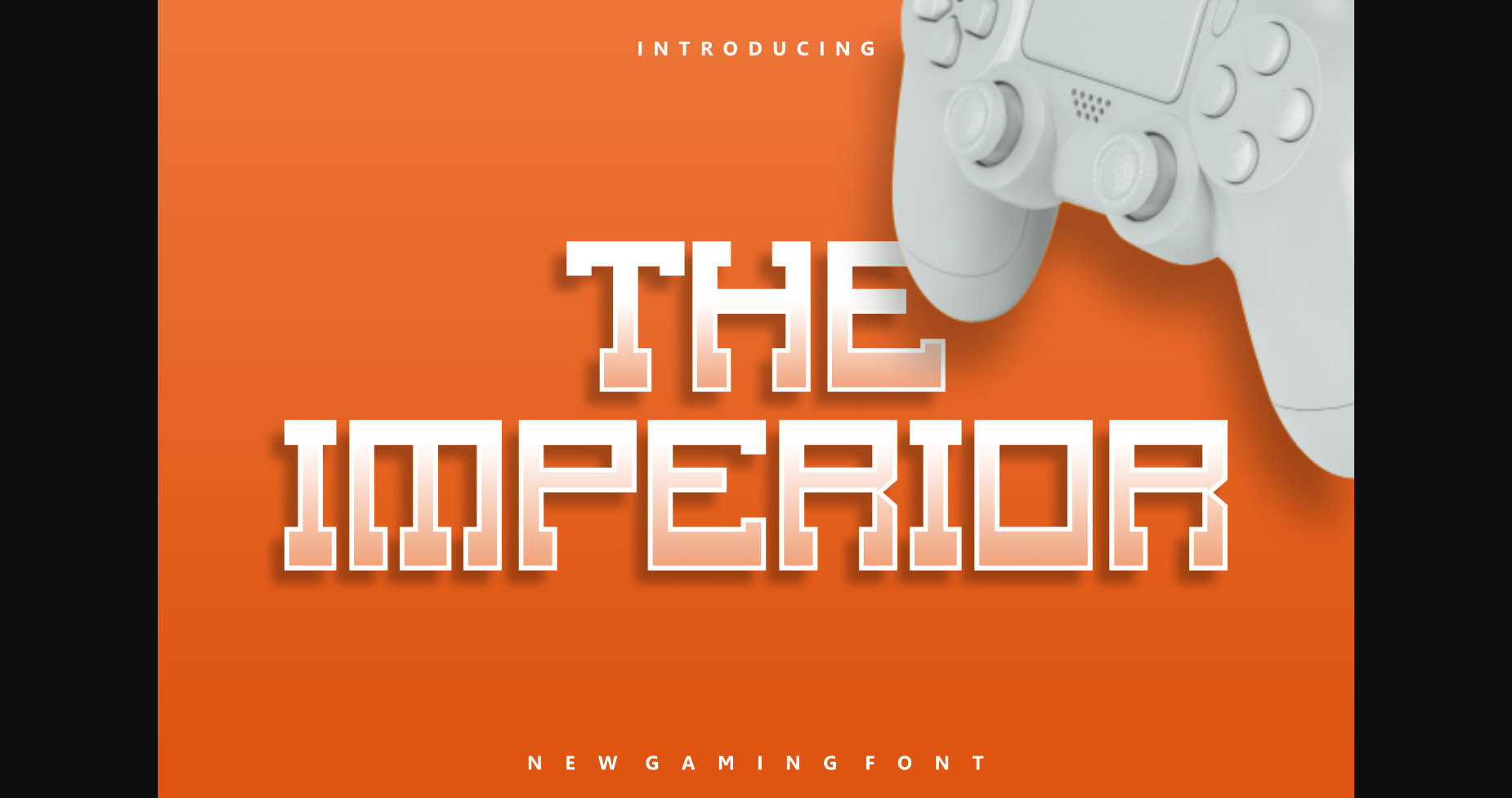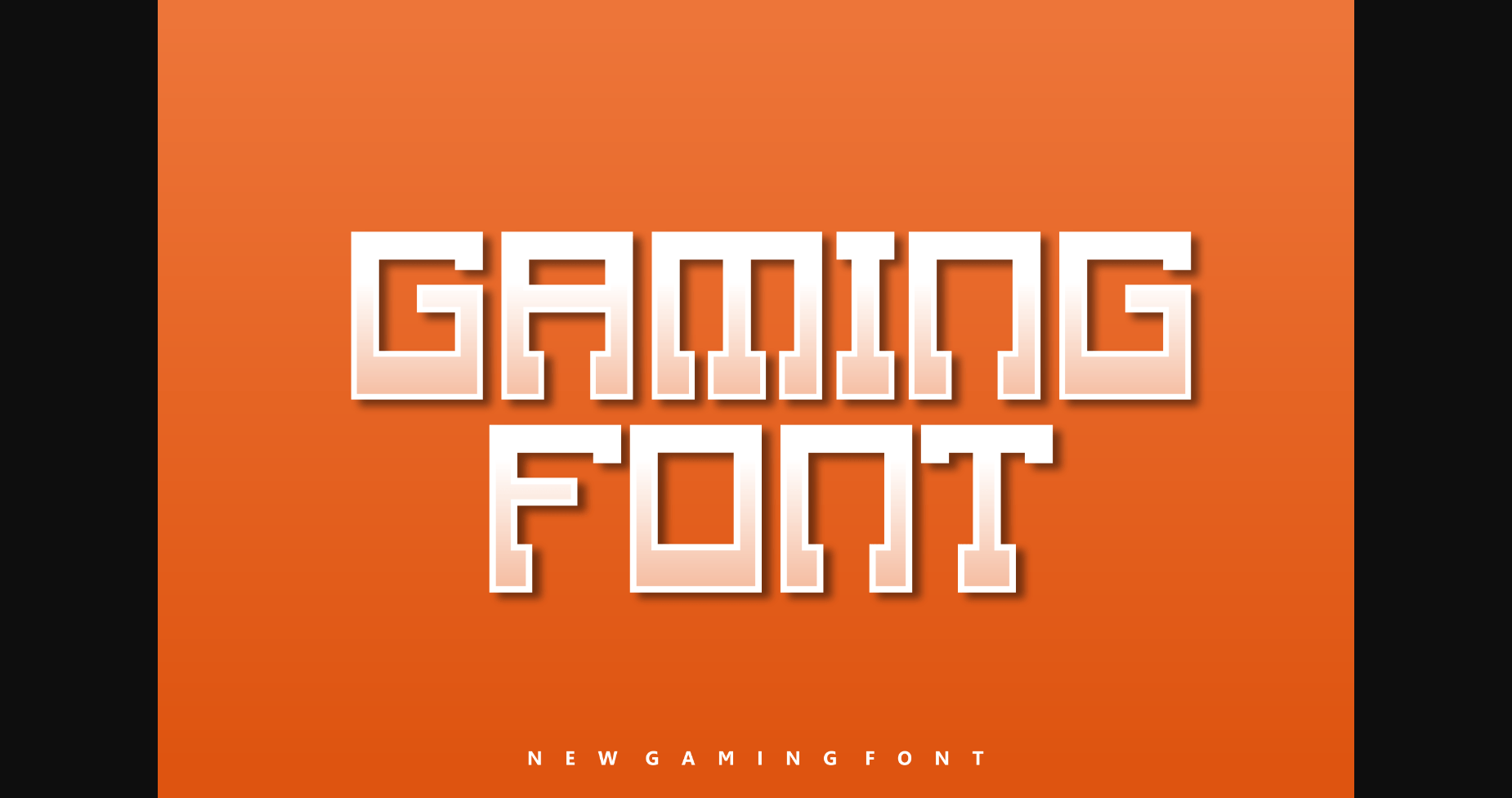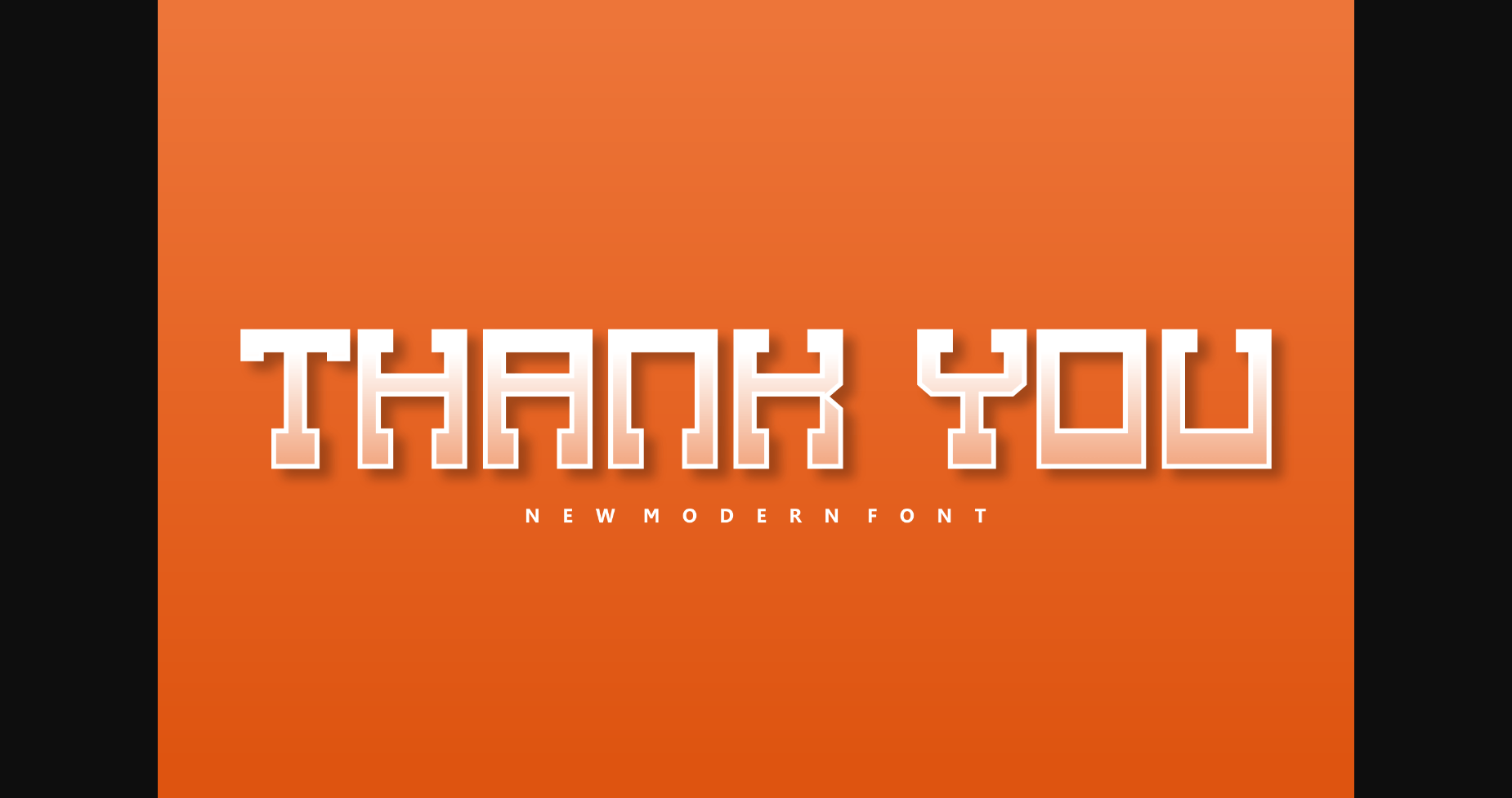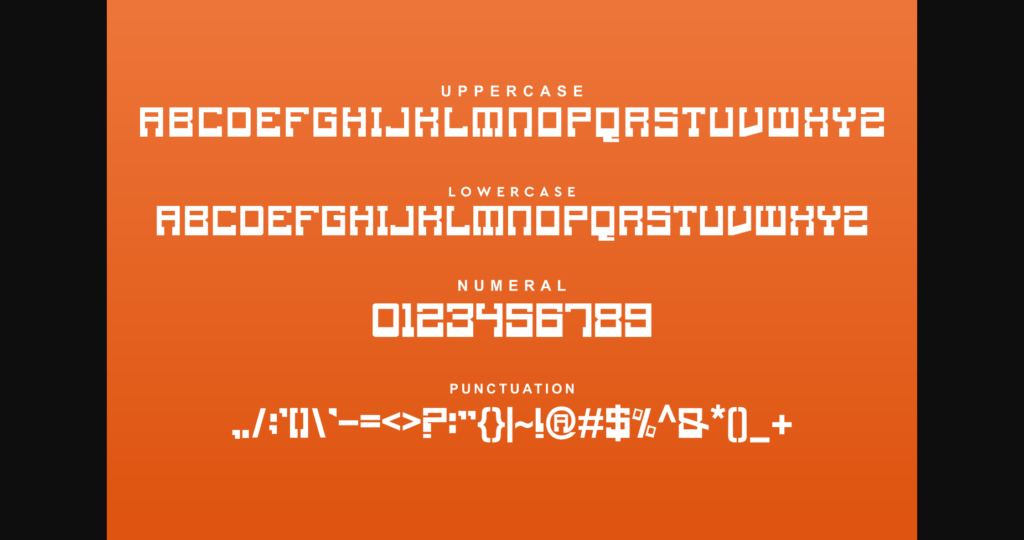
The Imperior Font
About The Imperior Font
The Imperior is a modern and cool sans serif font. No matter the topic, this font will be a great asset to your font library.